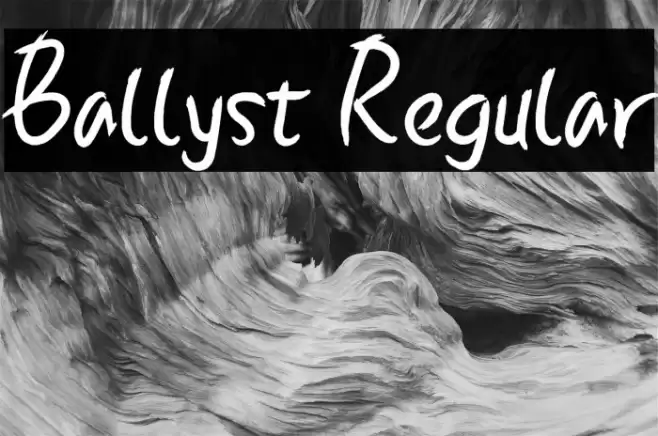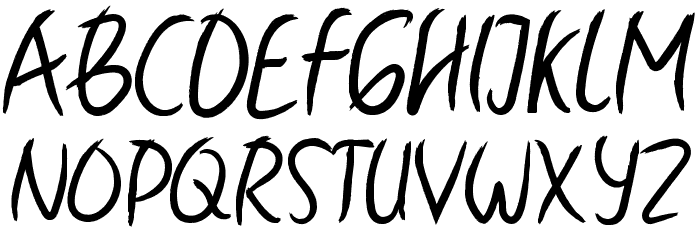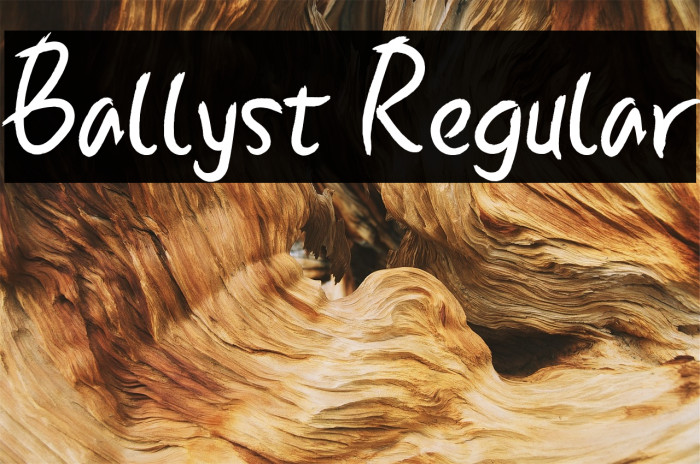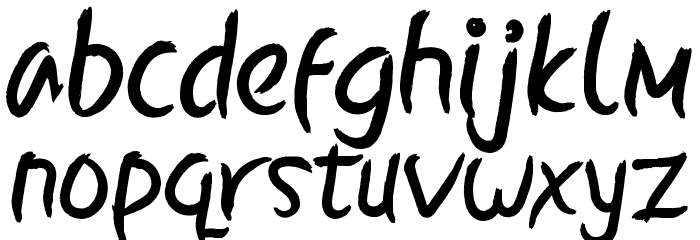
Ballyst Regular Font
Ballyst Regular Description
This font features a dynamic and energetic handwritten style, characterized by its fluid strokes and slightly irregular forms. The letters exhibit a natural flow, with varying thickness that adds a lively and personal touch. The uppercase and lowercase letters maintain a consistent style, while the numbers and special characters blend seamlessly into the overall design. This font's organic appearance makes it suitable for projects that require a personal or informal tone, while still maintaining readability.
A lively handwritten font with fluid strokes and dynamic character from Handwritten fonts.
- Proposed Projects: Ideal for greeting cards, personal branding, social media graphics, and creative invitations.
- Use Case: Logos, Headlines, Creative projects